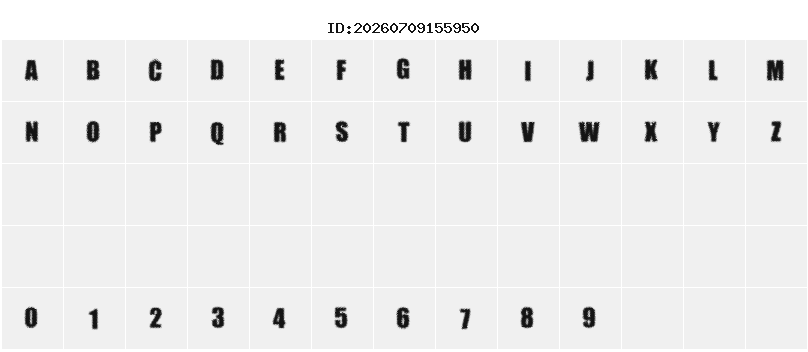
DOTIMPACT Preview
• Font Name: DOTIMPACT
• Font ID: DOTIMPACT:Version 1.00
• Full Font Name: DOTIMPACT
• Version: Version 1.00 December 23, 2013, initial release
• PostScript Name: DOTIMPACT
About DOTIMPACT.ttf
DOTIMPACT.ttf is a modern, elegant sans-serif font designed for ultimate readability and visual harmony. Perfect for branding, headlines, web design, and print materials.